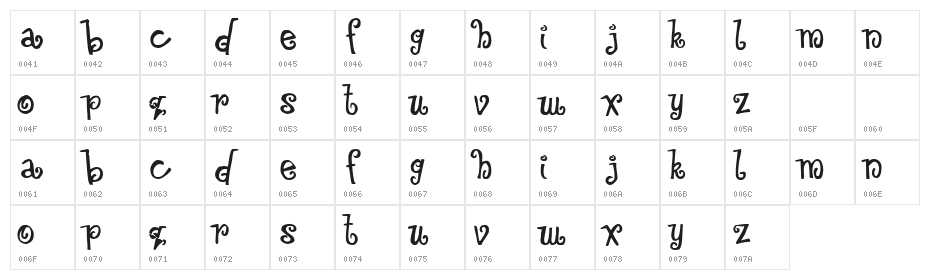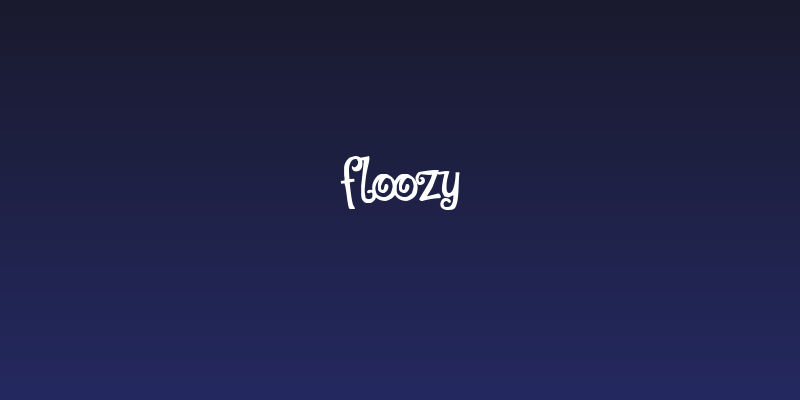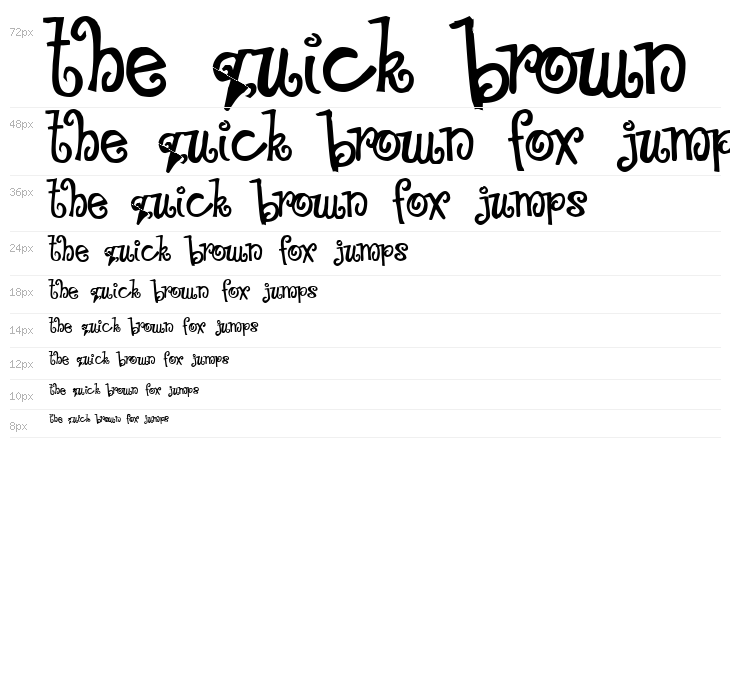
Floozy Font
Floozy Description
This font features a playful and whimsical design, characterized by its irregular, hand-drawn appearance. The letters have a bouncy, uneven baseline, adding to its quirky charm. The strokes are bold and slightly exaggerated, with some letters featuring unique curls and loops that enhance its decorative style. The font exudes a sense of fun and creativity, making it ideal for projects that require a touch of personality and flair. Its distinctiveness makes it stand out, while still maintaining legibility.
| Proposed Projects | Ideal for children's book covers, playful branding, party invitations, and creative posters. |